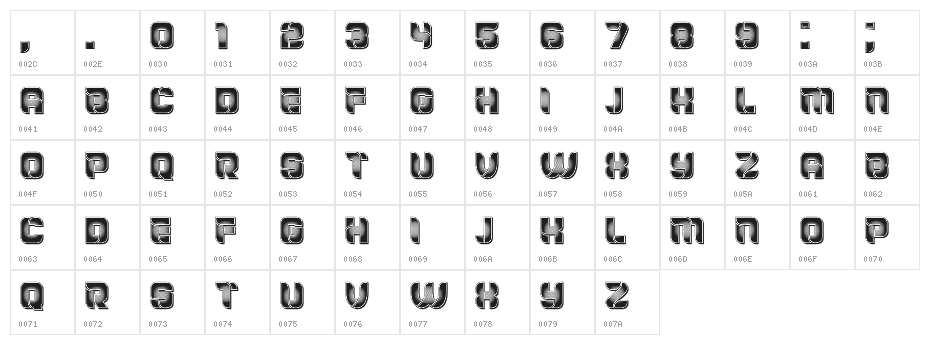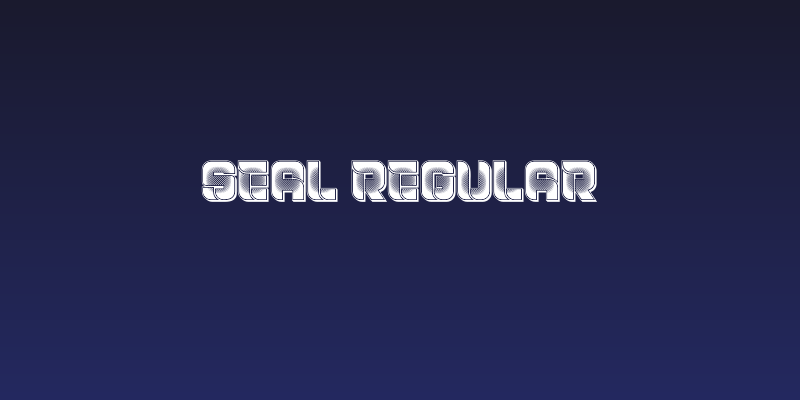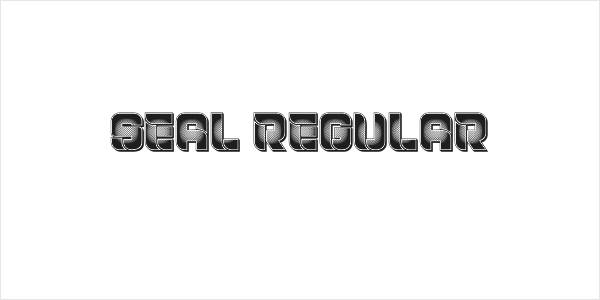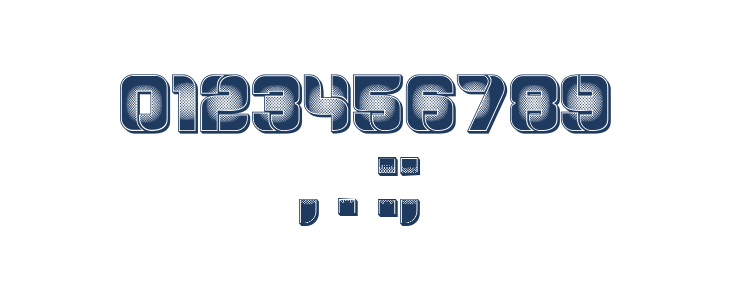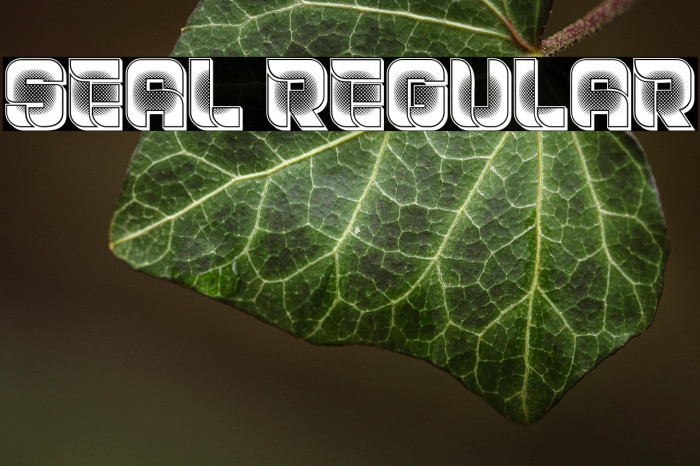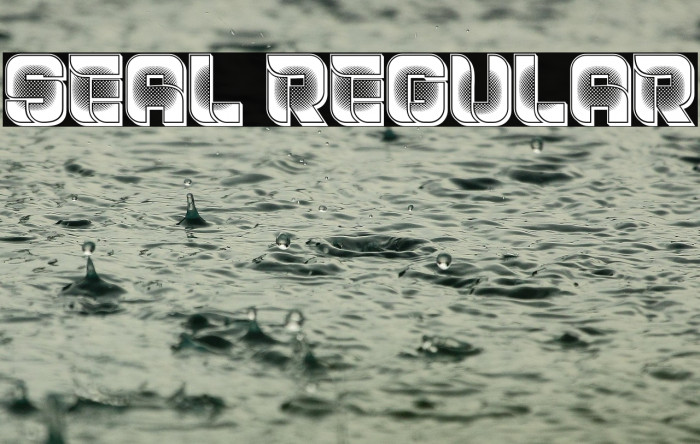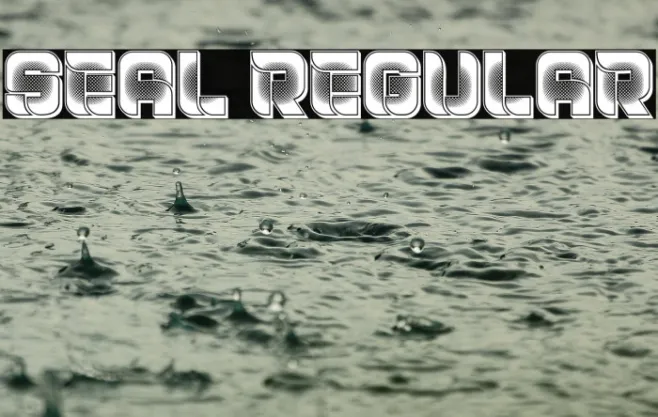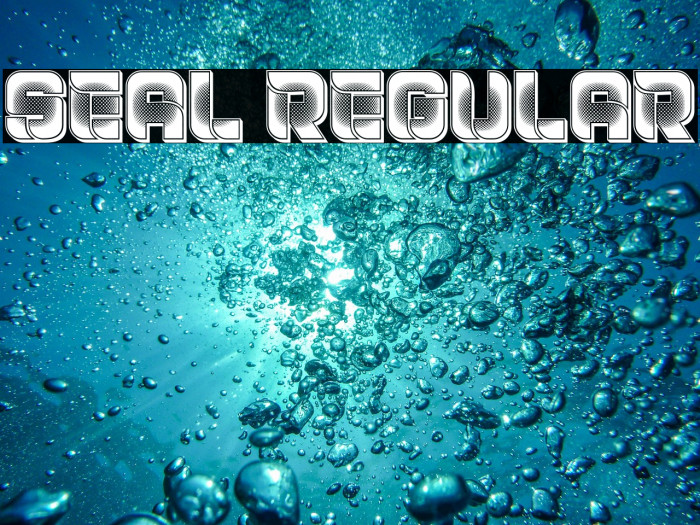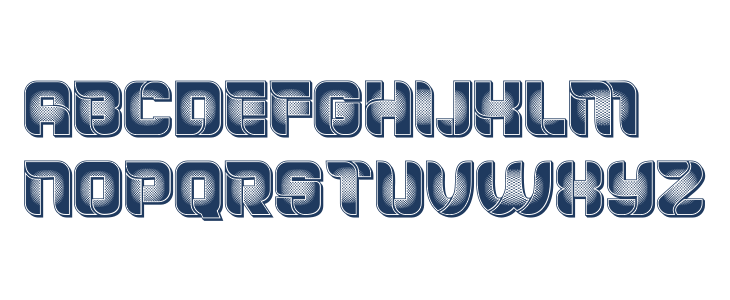
Seal Regular Font
Seal Regular Description
This font features a bold, decorative style with a unique 3D effect created by intricate shading and line work. The characters are uppercase and have a geometric structure, giving them a modern and futuristic appearance. The design includes a pattern of diagonal lines within each letter, adding depth and texture. The font is highly stylized, making it ideal for eye-catching designs. Its boldness and distinctiveness make it stand out, suitable for projects that require a strong visual impact.